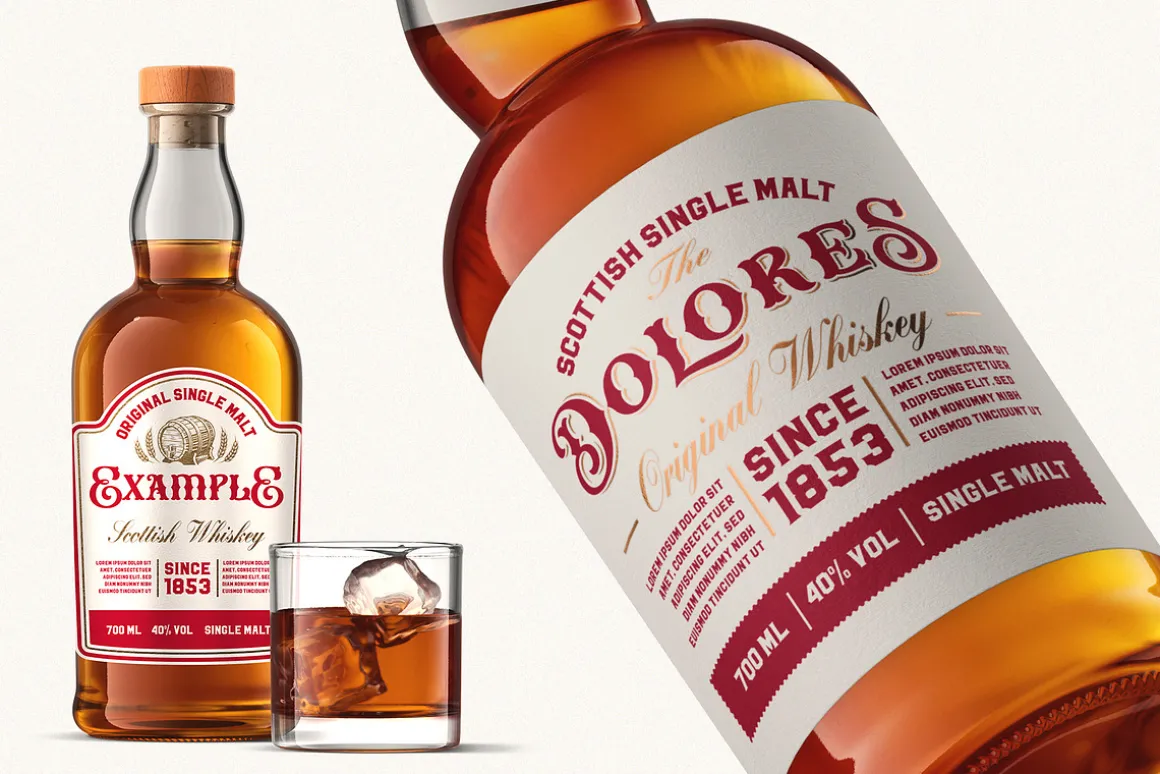
Brooks is an old fashioned font family inspired by vintage alcohol labels and packages as well as the old signboards. The font works well with normal size text but looks better for large headlines and short words. Perfect for many creative products such as logos, headlines, packaging, alcohol labels, and many other uses.
The Brooks is a layered font and it includes 3 different styles; Regular, Shadow, and Insert so you can combine them with each other and get fancy headlines. The font includes a full set of characters from a-z for lowercase,A-Z for uppercase, set of alternates for each case, ligatures as well as numbers, and minimum punctuations set.
- A basic character from A-Z for lowercase and uppercase
- Numbers and punctuations
- Special alternates and ligatures
- Accented characters ( the font supports Western European languages such as; Albanian, Catalan, Danish, Dutch, English, Faroese, Finnish, French, German, Galician, Irish, Icelandic, Italian, Norwegian, Portuguese, Spanish, and Swedish.)